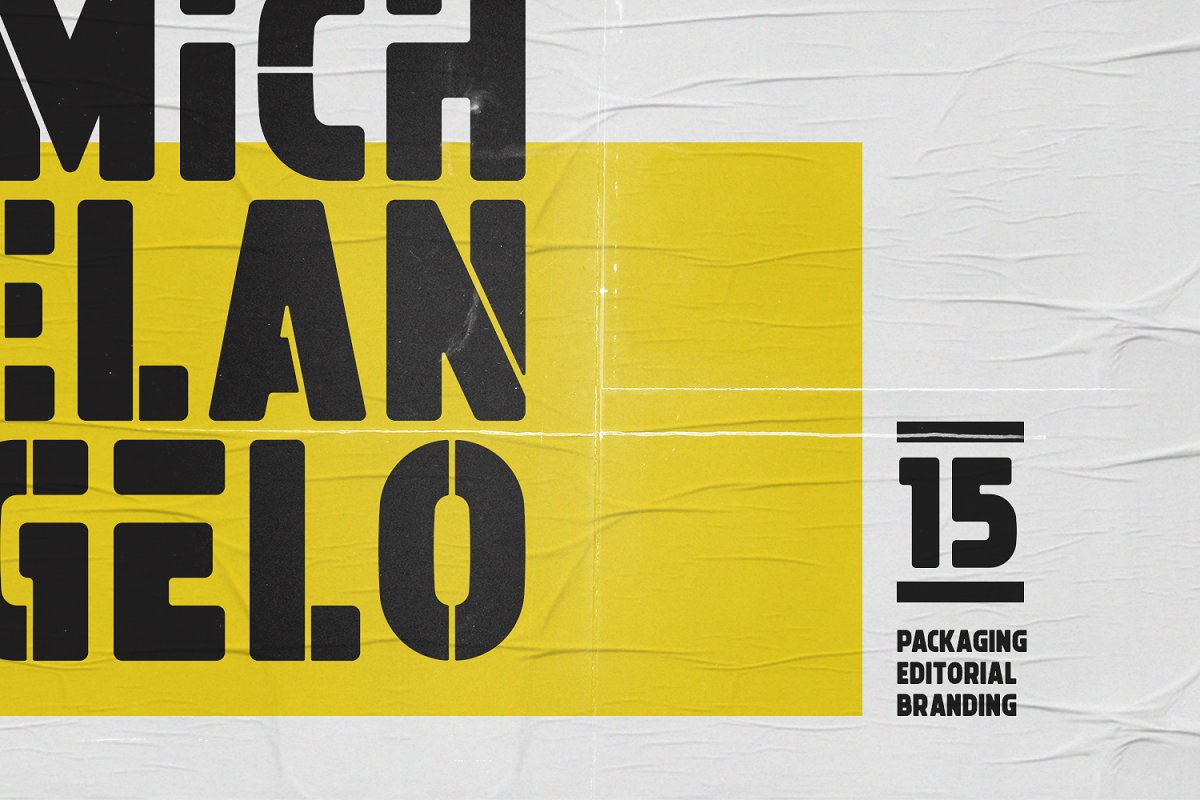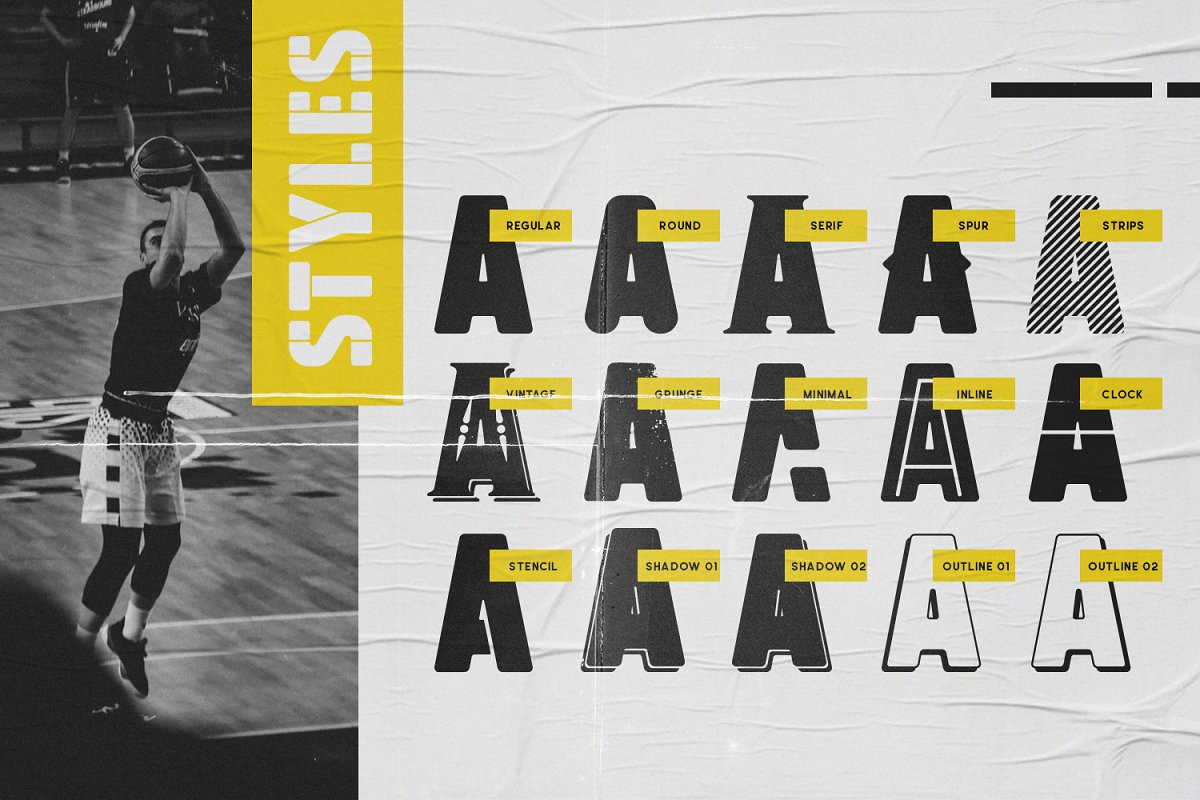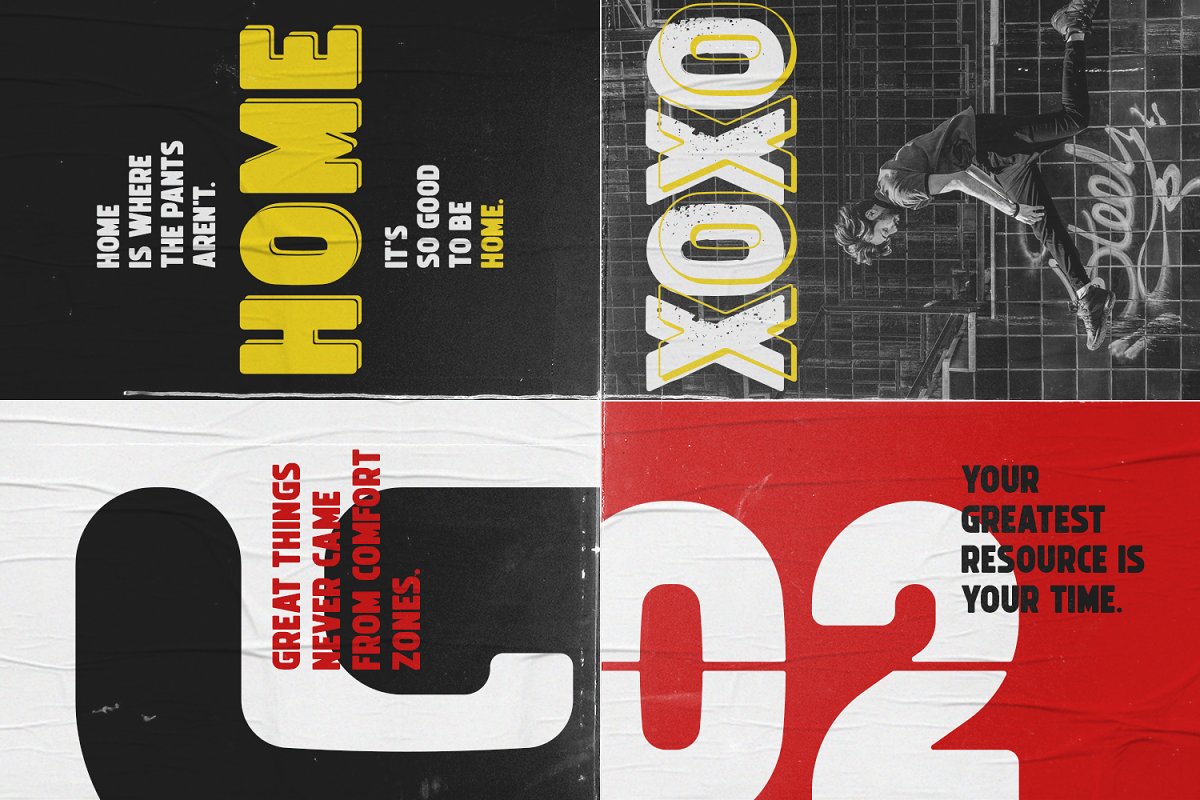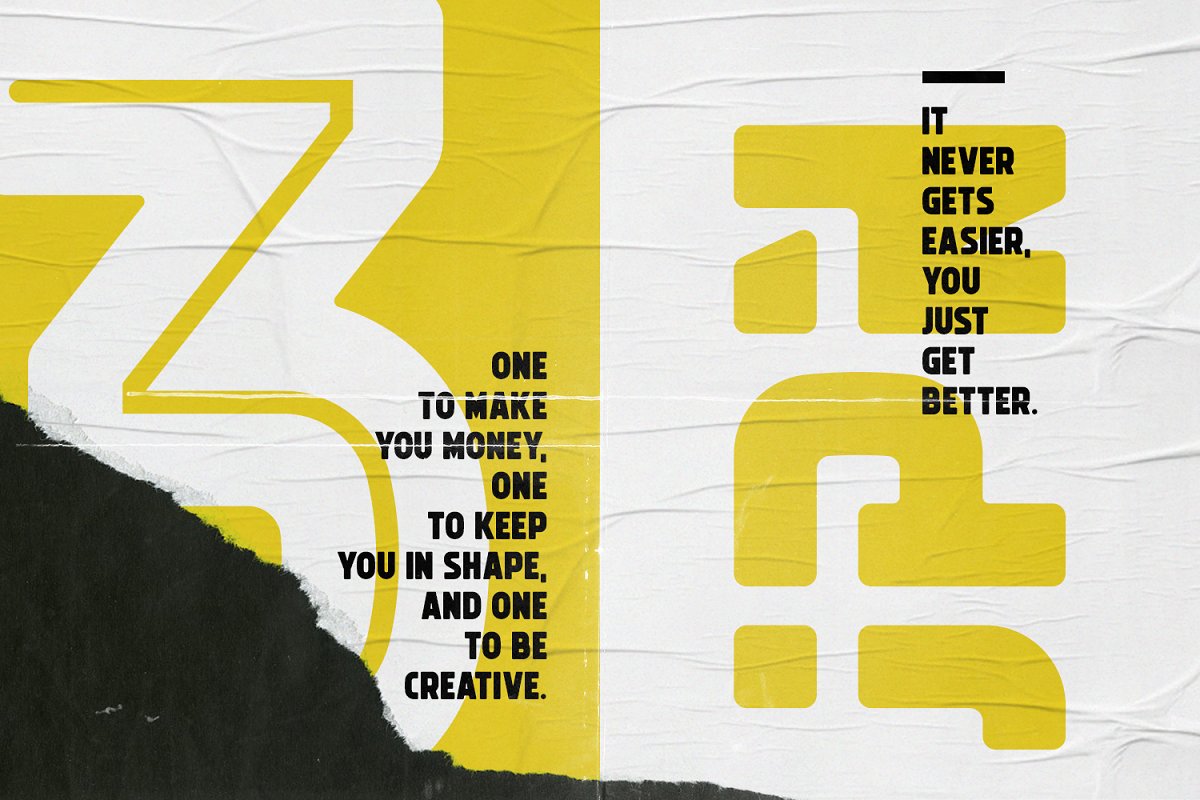
About the Michelangelo
Michelangelo is a bold font with both of modern and vintage touch, It comes in 15 styles, attractive and bold glyphs, thereby creating more variability, Designed with powerful opentype features in mind, Each style includes extended language support, currency, and more, Perfectly suited for graphic design and any display use, It could easily work for web, signage, corporate as well as for editorial design
Styles: Regular, Round, Serif, Spur, Strips, Vintage, Grunge, Minimal, Inline, Clock, Stencil, Shadow and OutlineThanks for looking, and I hope you enjoy it,